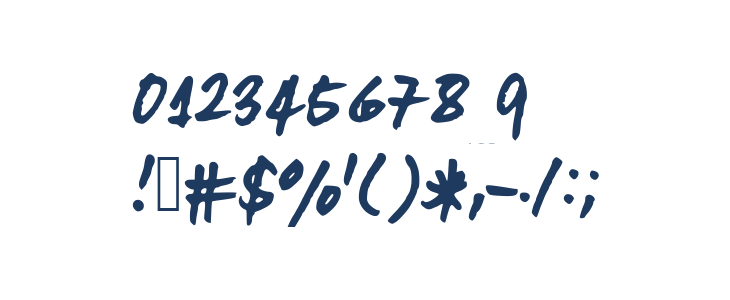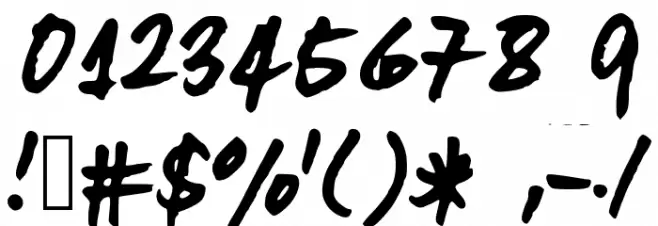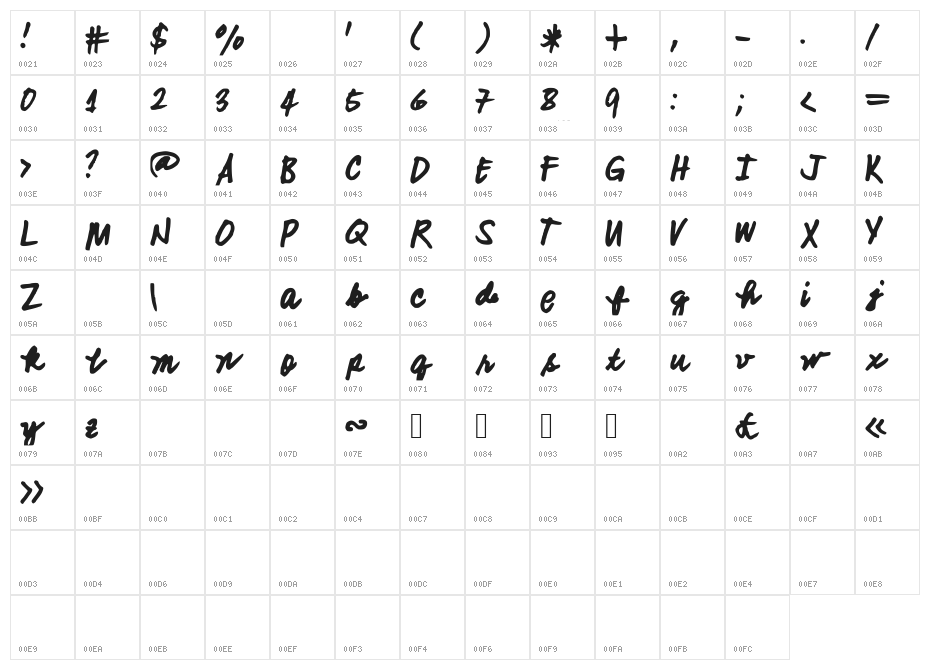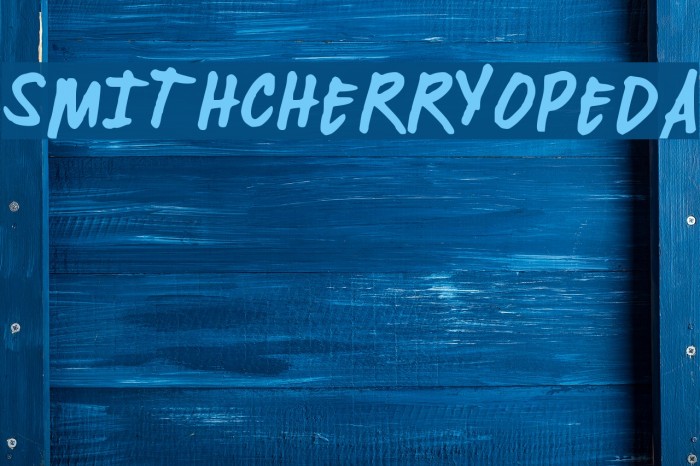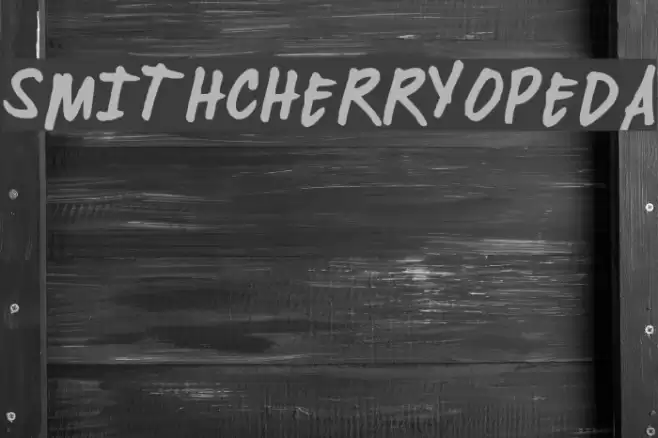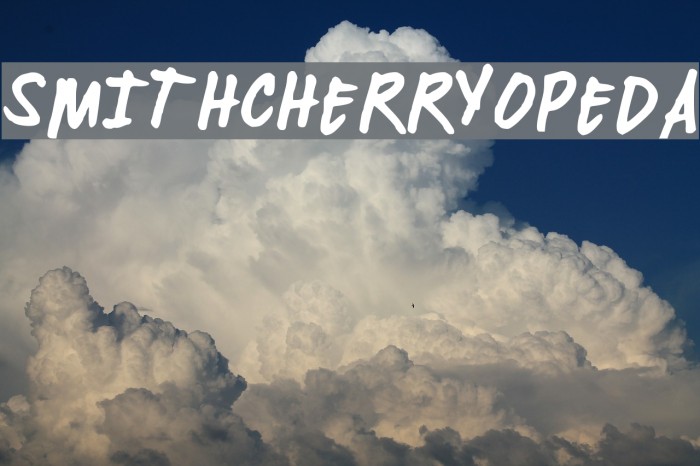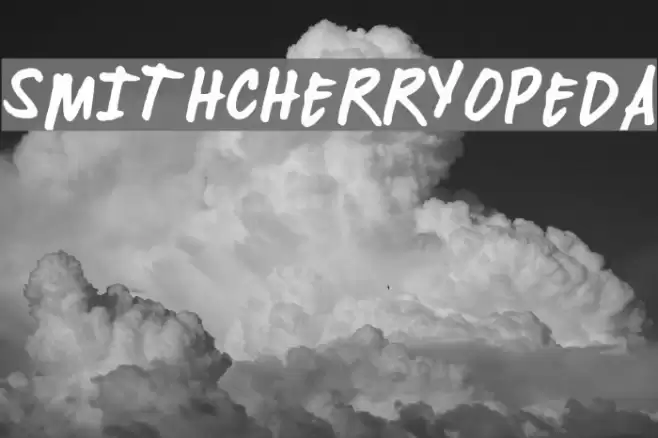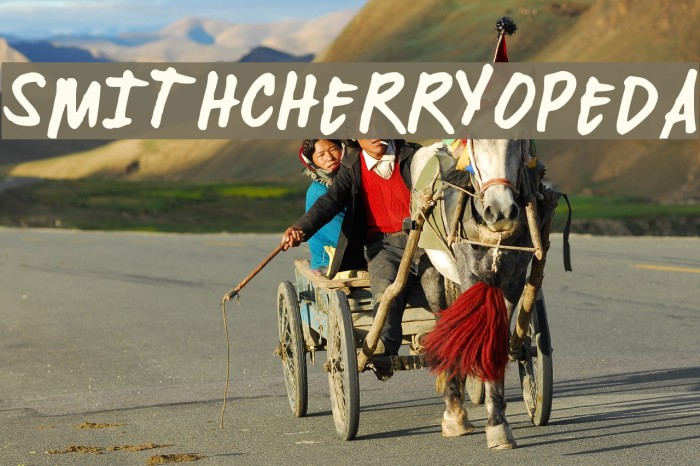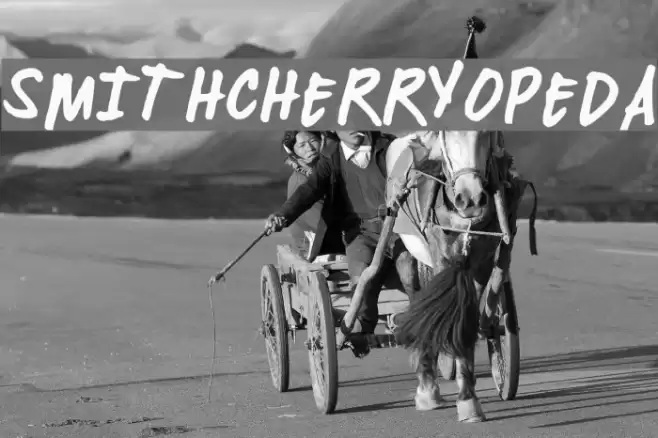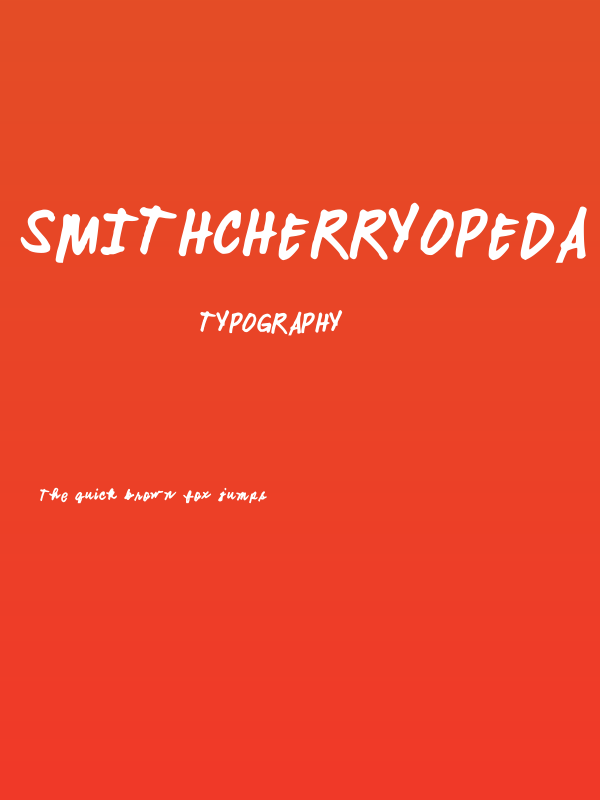
SMITHCHERRYOPEDA Font
SMITHCHERRYOPEDA Description
This font exhibits a bold, handwritten style with a casual and dynamic appearance. The characters are slightly slanted, giving a sense of motion and fluidity. The uppercase letters are bold and prominent, while the lowercase letters maintain a consistent flow with a slightly smaller size. Numbers and special characters follow the same handwritten aesthetic, ensuring uniformity across all glyphs. The strokes are thick and consistent, providing a strong visual impact. This font is ideal for projects that require a personal touch or an informal tone.